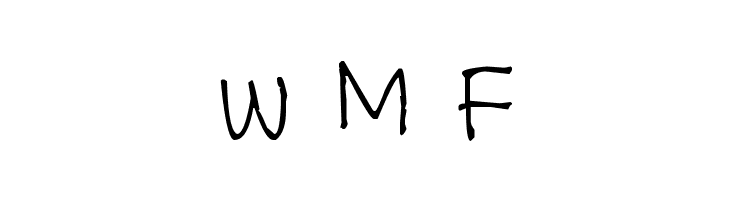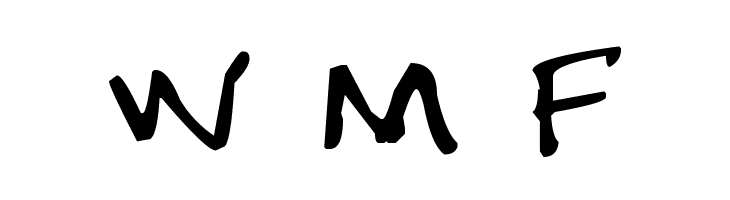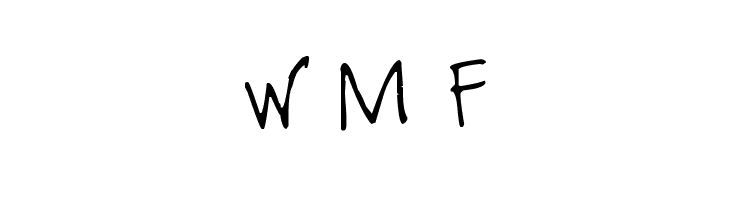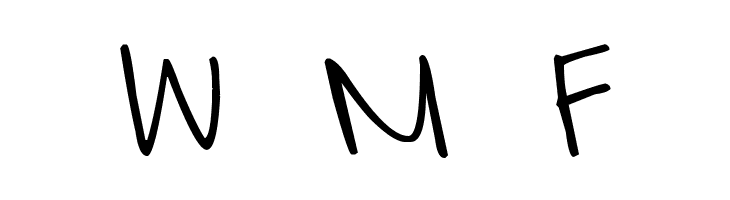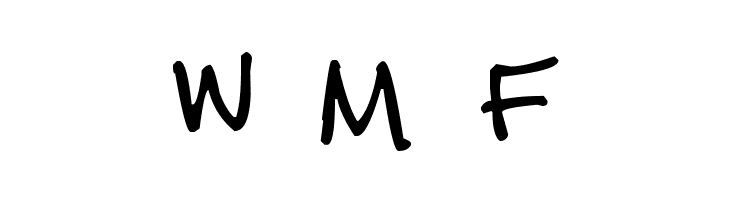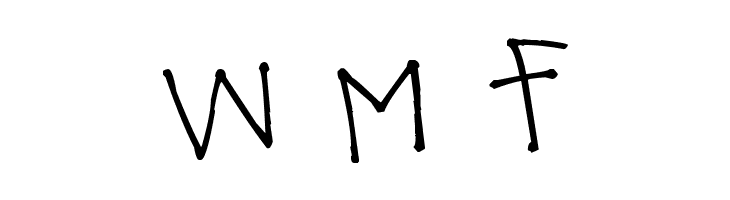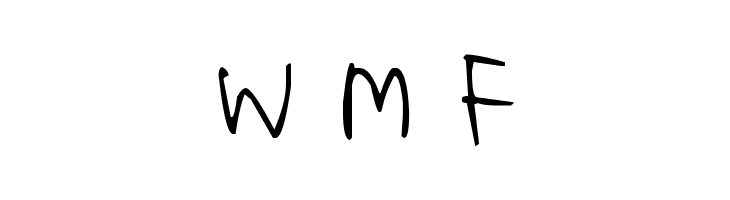
• Pea Esther
A playful, casual handwritten font with uneven strokes and a personal touch.
• Pea Faye
A playful, handwritten font with a whimsical and informal style.
• Pea Felicia
A playful, casual handwritten font with a lively and informal style.
• Pea Frankie
A playful, bold handwritten font with a casual and lively style.
• Pea Fruit Salad Doodles
A whimsical collection of playful, hand-drawn doodles with charming motifs.
• Pea Gemma
A casual, handwritten font with a playful and informal style.
• Pea Gentry
A playful, handwritten font with a casual and personal touch.
• Pea Hannah
A playful, casual handwritten font with a lively and informal style.
• Pea Hannah Chocolate Swirls
A playful handwritten font with a whimsical and informal style.
• Pea Hanzel and Gretel's Doodles
A whimsical, doodle-like handwritten font with playful embellishments.